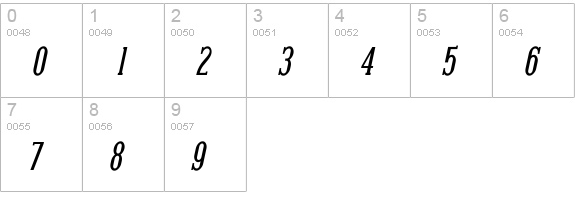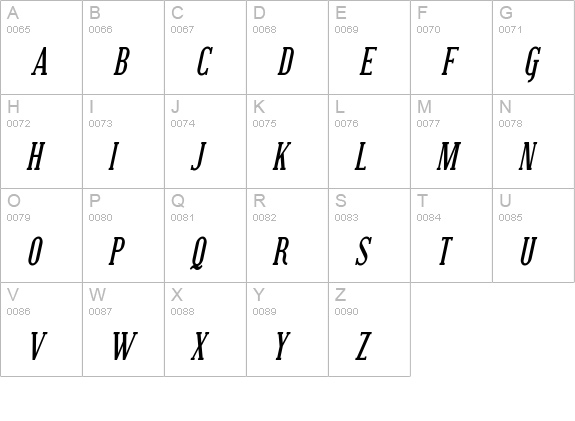
Covington Cond Bold Italic is a strong, high-contrast, condensed-width, italic variant in the Covington typeface family \xE2\x80\x94 well suited to headlines, attention-grabbing titles, and strong calls-to-action.
Covington Cond Bold Italic is a striking and versatile typeface that exudes sophistication and modernity. With its bold and italic style, this font commands attention and adds a touch of elegance to any design project. The sleek and streamlined look of Covington Cond Bold Italic makes it perfect for headlines, logos, branding, and more. What makes Covington Cond Bold Italic even more appealing is that it is available for free download at FontsMarket.com. This means that you can easily access this high-quality font without any cost, making it a valuable addition to your font library. Whether you are a professional designer or a hobbyist, Covington Cond Bold Italic offers endless possibilities for creative expression. Download it today and elevate your designs with this stylish and refined typeface.